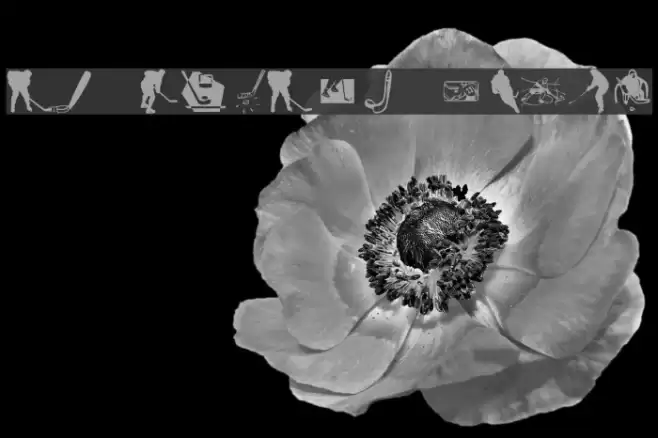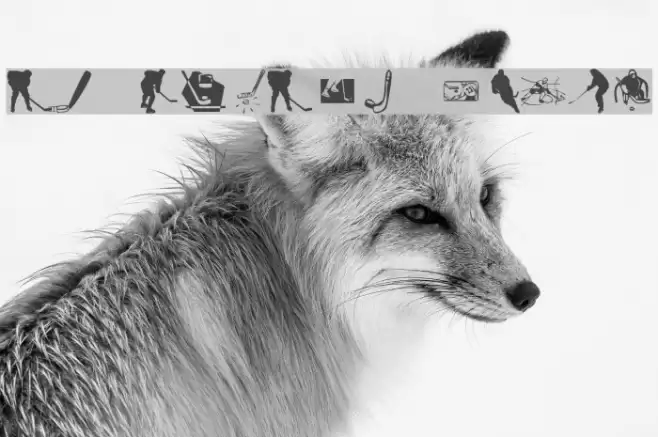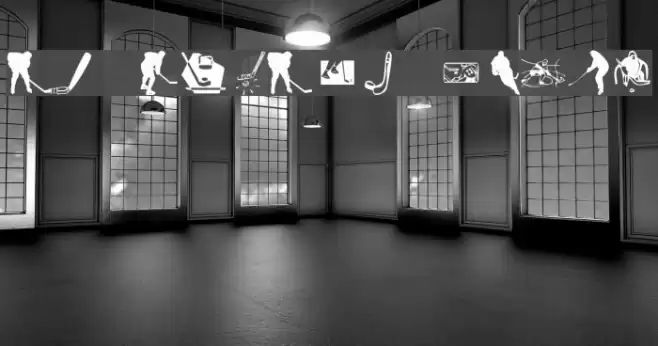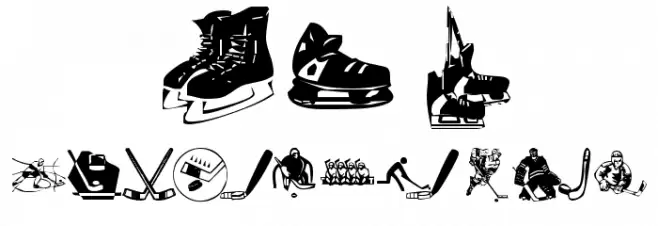
KR Hockey Dings Font
KR Hockey Dings Description
This is a decorative font featuring a series of hockey-themed icons and illustrations. Each character is represented by a unique image related to hockey, such as players in action, hockey sticks, pucks, skates, and other equipment. The style is bold and graphic, with strong lines and clear silhouettes that make each icon easily recognizable. The font is designed to capture the dynamic and energetic nature of the sport, making it ideal for projects that aim to convey a sense of movement and excitement. The icons are detailed yet simple enough to be used in various sizes without losing clarity.
- Proposed Projects: Ideal for sports event posters, team merchandise, hockey-themed websites, and educational materials about the sport.